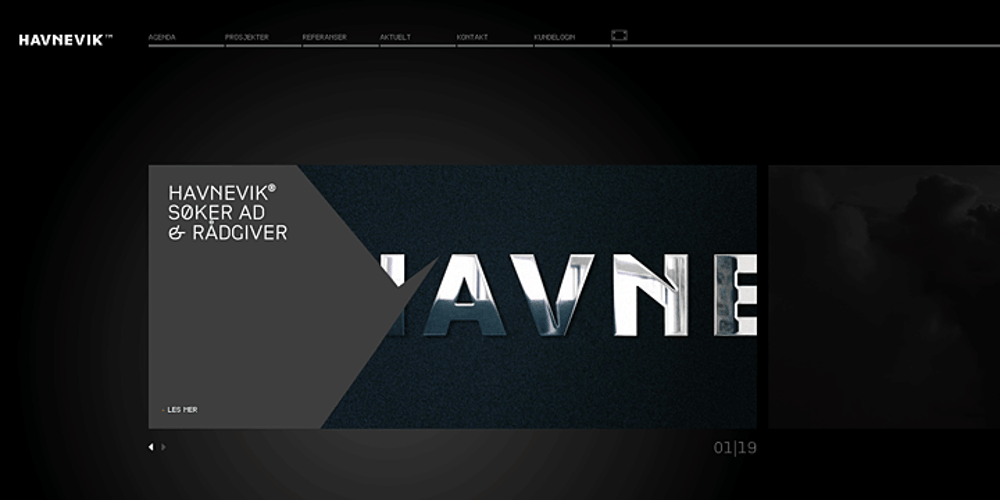
CP Company Font Family was designed by Fabrizio Schiavi and published by FSD. CP Company contains 4 styles and family package options. C.P. Company is a group of types including 4 different forms and it is a complementary sign of communication for the C.P. Company clothes maker. C.P. Company communication makes use of media such as the press and the web and that’s the reason why we have always felt the need for a font that would not show incongruities through the monitor. Therefore we have decided to change the structure of glyphs like a, e, g, s… in the most contrasted versions to prevent the serifs from touching the internal parts of the letters and in this manner we have made a really unusual stylistic choice for a group of types. The difference between the height of caps and smalls is very low (about 20%) so that the smalls are easy to read even when their dimensions are on a very small scale. Moreover this stylistic solution gives the possibility to avoid using the small capitals in case of charts and catalogue codes (i.e. Tricot M5) and provides more vertical compactness between the lines. Even a sentence written in capital letters next to another one written in smalls does not look so much contrasted from a typographical point of view and then it is not unpleasant. The limits due to different constructive principles have been overcome by means of a grid based on the automatic division of EM square of 9-point type and in this manner the letters have a wider face. The font is even more unusual owing to the style chosen that belongs to the classical tradition of hair-lined types for glyphs like e and also thanks to ligatures like ? in the characters set. CP Company is a geometrical font whose alphabet makes use of the style of types that preceded the Helvetica, matched with more experimental and updated solutions. Numbering is monospaced. The bending of number 2, the slight raising of the oblique serif of number 4 and the presence of a hair-line in number 7 are the solutions adopted to make the types match in a more balanced manner.